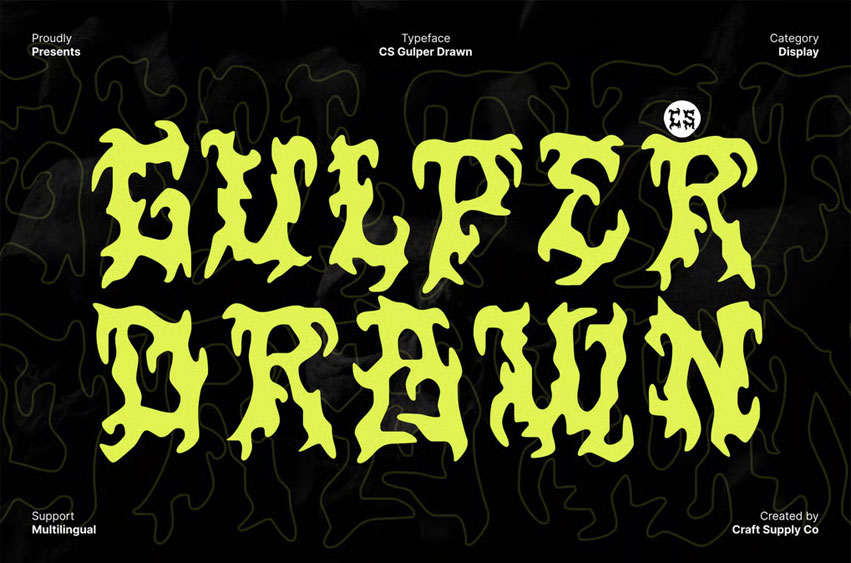
CS Gulper Drawn Font Aggressive Metal Display with Raw Handcrafted Energy Sharp, Angular Forms Built for Maximum Impact This is a loud and commanding metal display font designed to unleash raw energy in every letter. Its sharp, angular construction mirrors the intensity of heavy metal aesthetics, delivering a fierce visual punch from the first glance. The pointed edges, exaggerated terminals, and aggressive silhouettes translate perfectly into designs that demand boldness and power.
Hand-Drawn Texture with Raw Scratches and Subtle Softness The drawn effect is what gives this font its signature character. Each glyph is infused with rough, scratched textures reminiscent of hand-etched lettering, adding depth and wildness to the overall form. Yet, beneath the chaos, there’s a subtle softness slight uneven curves and organic imperfections that create a more approachable.
A Perfect Match for Logos, Posters, and Album Artwork Designed with musicians, promoters, and underground creatives in mind, thrives in energetic and rebellious compositions. Its striking forms make it ideal for metal band logos, gig posters, festival announcements, album covers, and extreme genre branding.
Built for Designers Seeking Ferocity and Expression This font isn’t just a font it’s a visual statement. Its handcrafted ruggedness, pointed geometry, and gritty textures create a mood of rebellion, speed, and ferocious energy. Designers looking to channel the aggression of metal music or the attitude of alternative subcultures will find it an invaluable creative tool.